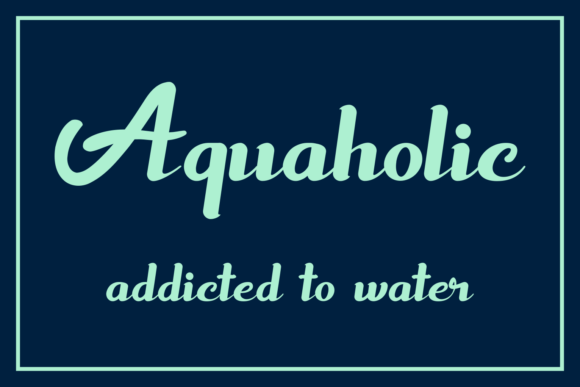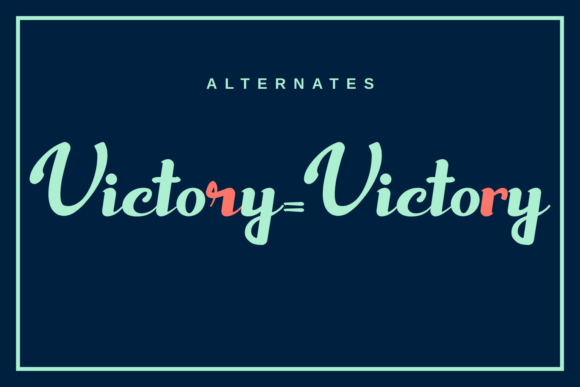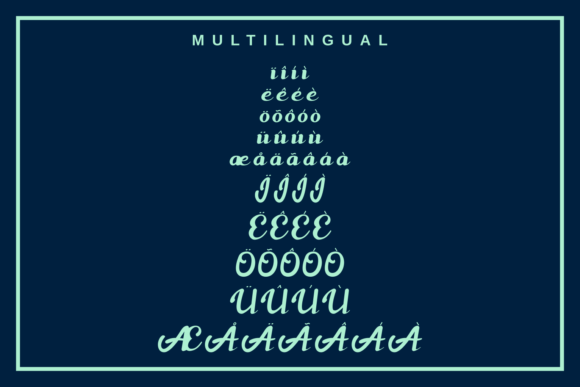
Savoury Font
About Savoury Font
Savoury is a lovely paint brushed script font. Fall in love with its incredibly versatile style and use it to create gorgeous wedding invitations, beautiful stationary art, eye-catching social media posts, and much more!